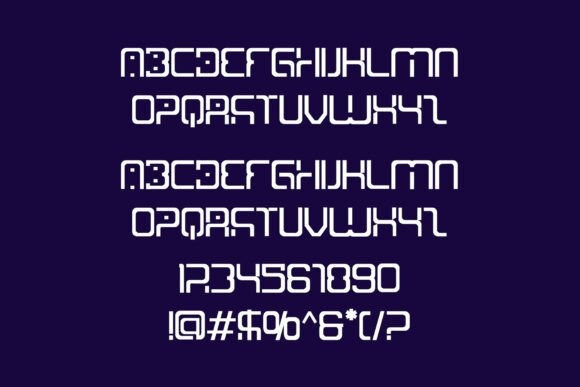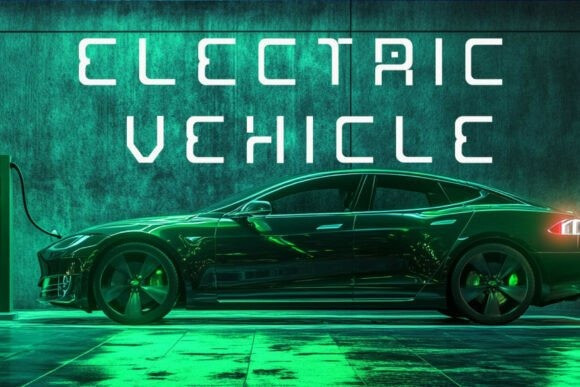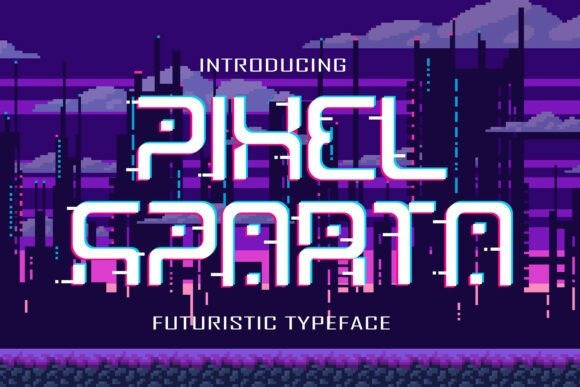
Pixel Sparta Font
Pixel Sparta Font is an audacious, forward-thinking typeface, expertly melding the meticulous precision of digital design with the untamed vivaciousness of pixel art. Inspired by the electric pulse of cyberpunk culture, the thrill of sci-fi gaming, and the nostalgia of retro arcade visual cues, its unique charm resides in its power to give projects a distinctively modern presence.
The design of each character, shaped with geometric finesse and futuristic curves, infuses a tech-savvy charisma that’s immediate and unforgettable. As a display typeface, Pixel Sparta commands attention for headlines, logos, posters, and branding, shining brightest when setting a futuristic tone is the need of the hour. Its commanding structure guarantees optimum readability at larger scales, while the pixel-inspired elements inject a unique flair and style.
Whether it’s an esports logo requiring an energetic touch, a streaming overlay needing distinctiveness, or promotional material for a sci-fi affair needing a punch of pizzazz, this typeface amps up the impact and energy. Pixel Sparta is not only a visually arresting typeface but also impressively adaptable. Its compatibility across print and digital mediums makes it a go-to choice for apparel design, poster crafting, product packaging, or social media campaigns.
Designers operating within the vibrant worlds of tech, gaming, and entertainment will find the cyberpunk undertones of Pixel Sparta a perfect fit for venturing into untapped creative terrains. Ideal for projects celebrating digital culture—be it indie game design or cinematic branding, its futuristic aura sets it apart.
Pixel Sparta is a narrative device. A perfect blend of pixel-art nostalgia and streamlined digital ingenuity, it encapsulates the spirit of futuristic design. To designers yearning to infuse vibrancy, style, and progressive elegance in their work, Pixel Sparta is a no-brainer. Try it and let your designs speak a powerful, contemporary language.